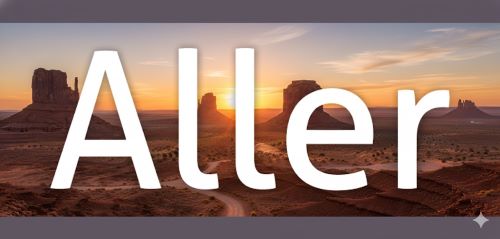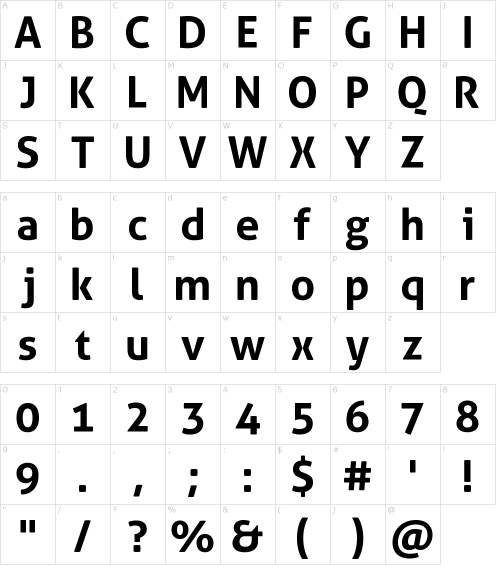
Aller Font
Aller Font is a friendly, modern sans-serif typeface designed for excellent readability and versatility. With its rounded shapes, clean structure, and wide range of weights, it works beautifully for web design, branding, posters, and interfaces. Aller delivers a warm, approachable feel while remaining professional and contemporary.
➤ Font Name: Aller
➤ Designer: Dalton Maag Ltd
➤ Style: Sans Serif
➤ Designer: Dalton Maag Ltd
➤ Style: Sans Serif